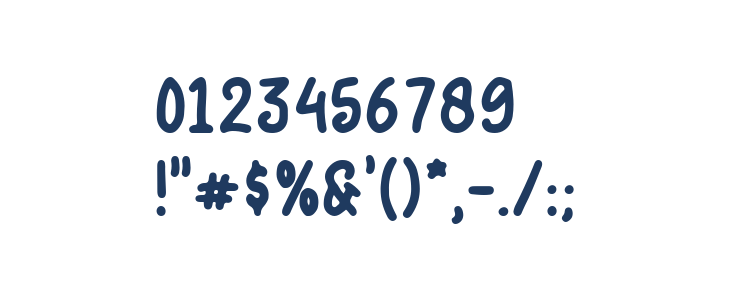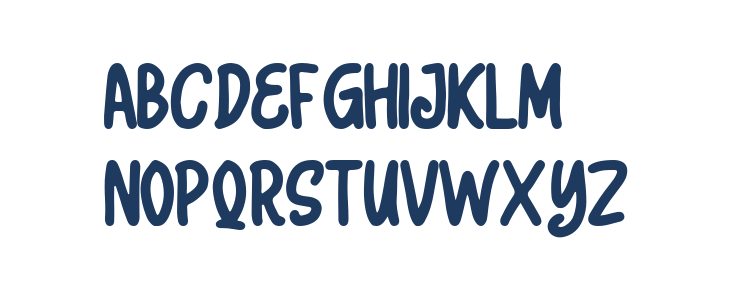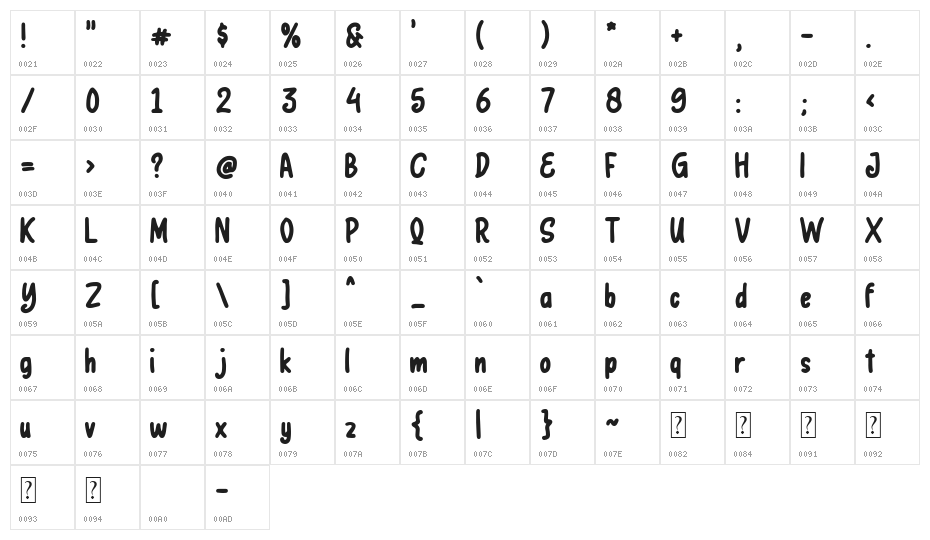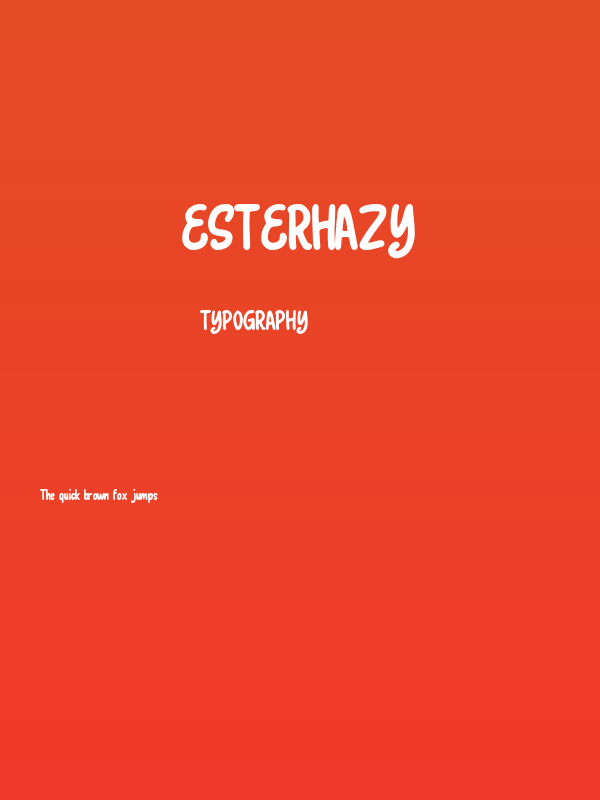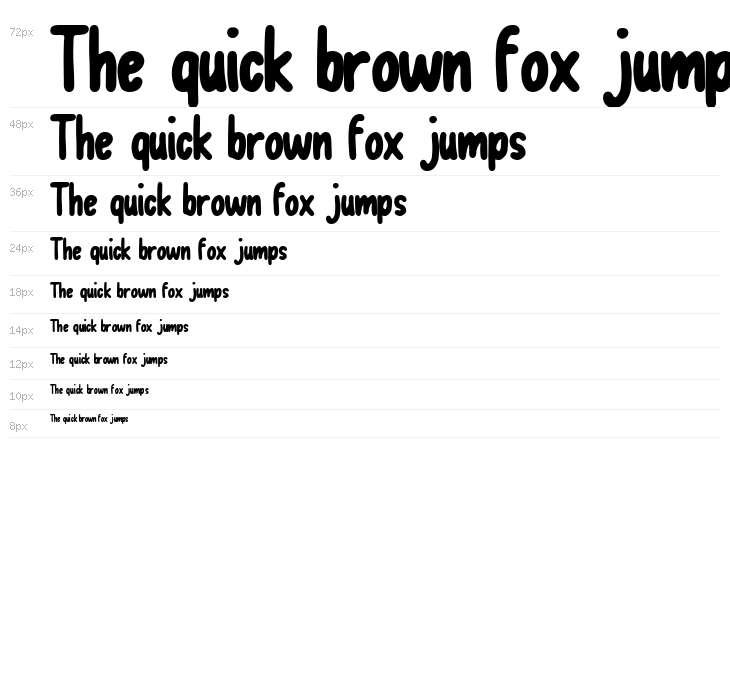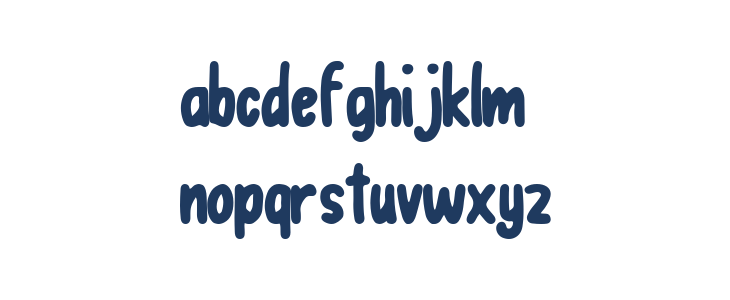
Esterhazy Font
Esterhazy Description
A playful, rounded handwritten typeface with consistent stroke width, informal character shapes, and a friendly, approachable appearance. The letters are bold and slightly condensed, with a casual, organic flow and smooth curves.
| Overall Style | Playful, Casual, Handwritten |
| Use Case | Headlines, Posters, Branding, Social Media |
| Proposed Projects | ChildrenΓ’β¬β’s books, posters, greeting cards, branding for playful or casual products, social media graphics. |